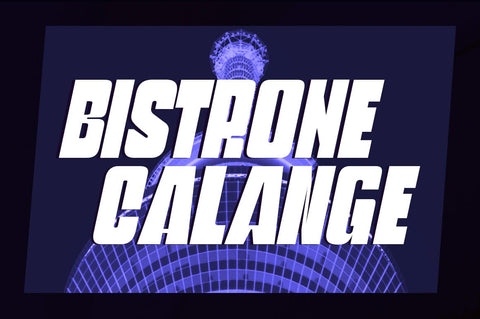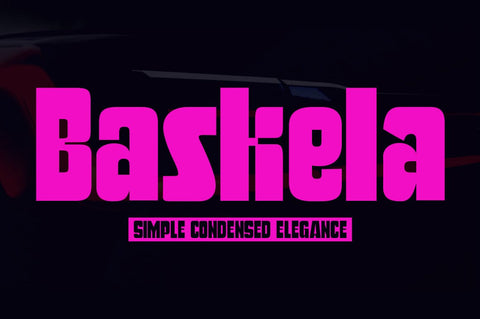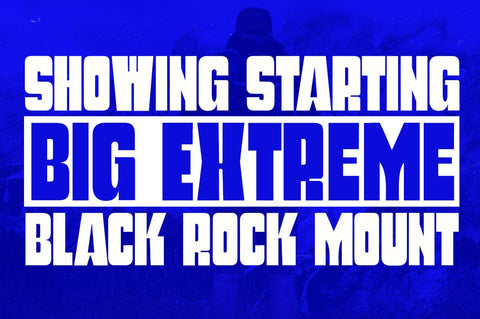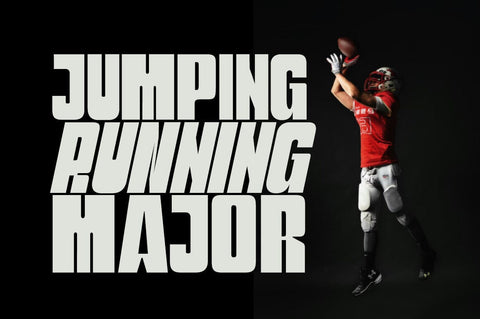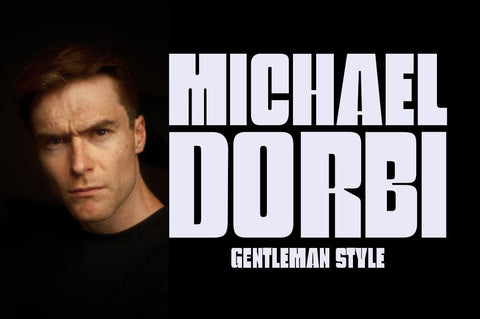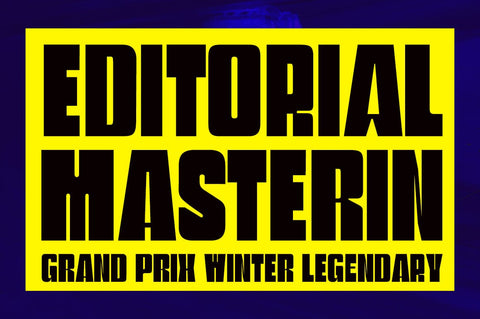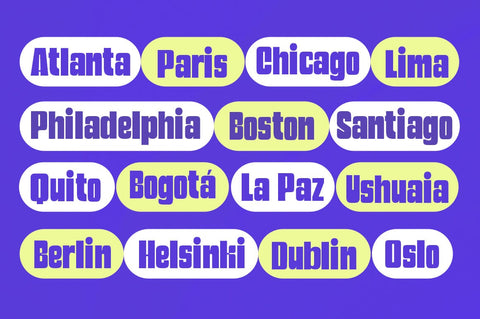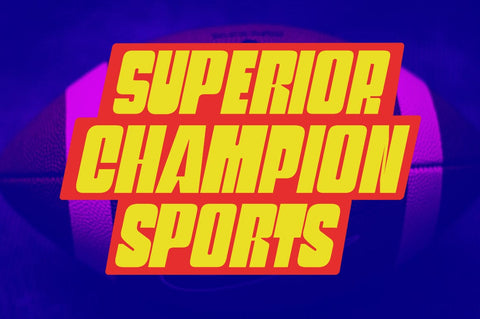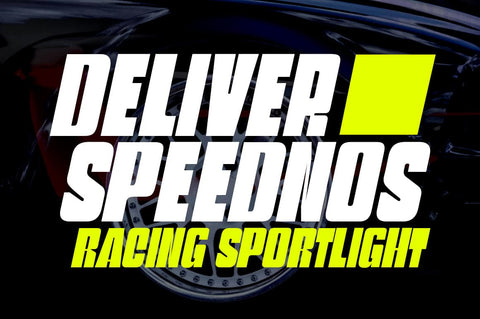
Baskela Display
Introducing the Baskela Display font, perfect for logos, branding, greetings, social media themes, and wedding invitation designs. This font is also great for titles due to its sleek design and attractive appearance. Available in both regular and italic styles, it's easy to use for your latest and future projects.
Multilingual.